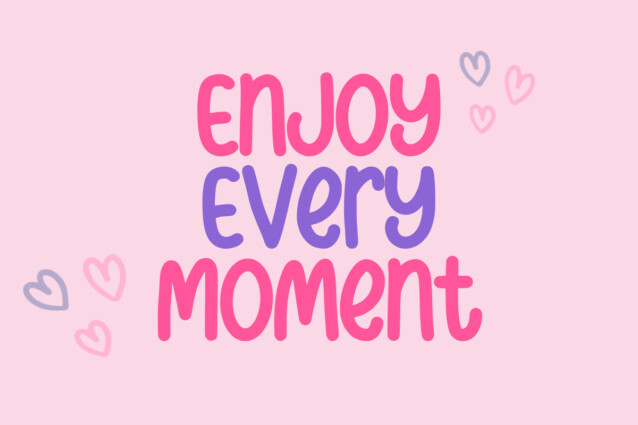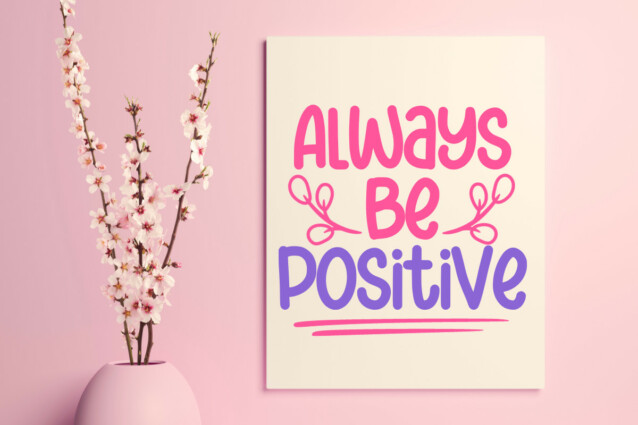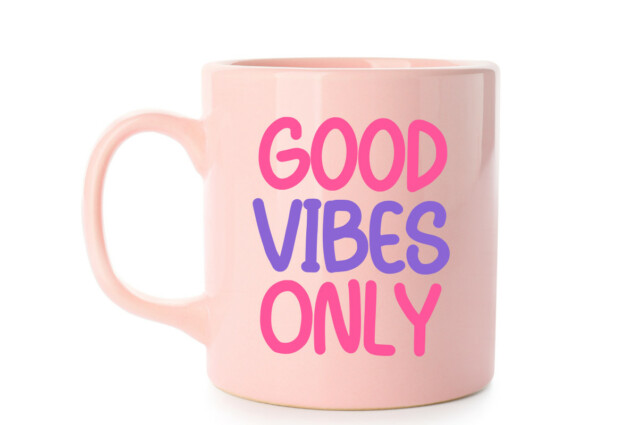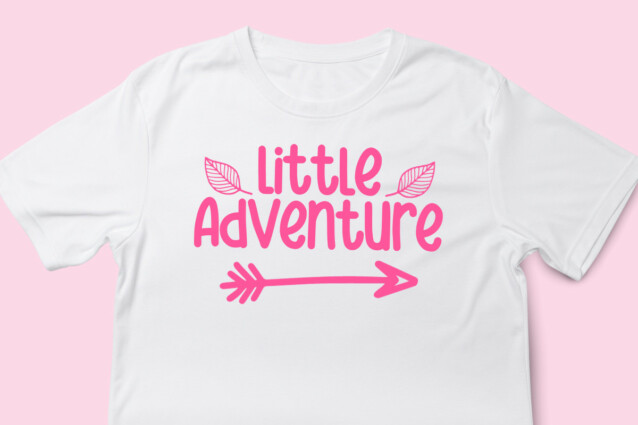
Happy Pinky Font
Happy Pinky Font is a sweet and friendly handwritten font. Its natural and unique style makes it incredibly fitting to a large pool of designs. The only limit is your imagination!